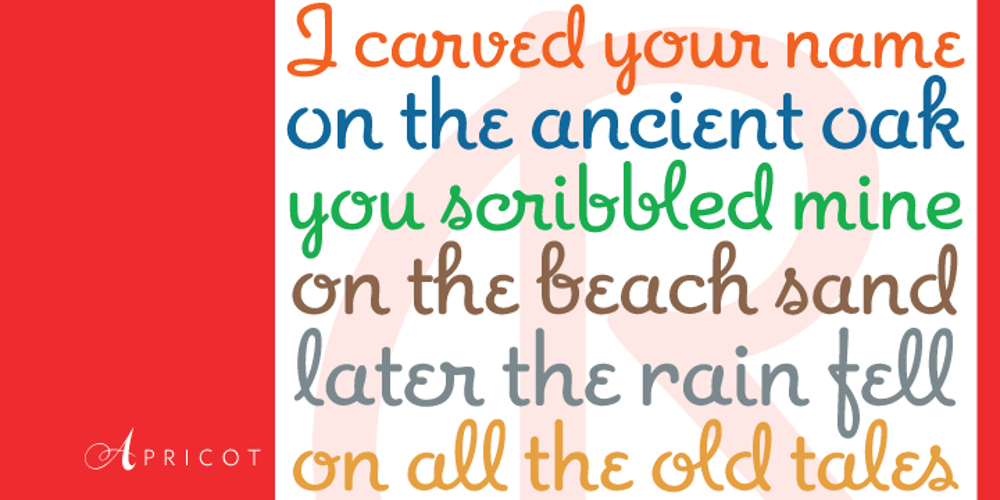
Apricot
Apricot font
Apricot Font Family was designed by A. R. Bosco, Rebecca Alaccari and published by Canada Type. Apricot contains 1 styles and family package options. A. R. Bosco made Romany for ATF in 1934, when there was much demand for script types in advertising and publishing. It was the high times of Speedball lettering, and a casual script in that fashion was naturally very welcome. It became an instant hit and was used widely for a good part of the 1930s and 1940s. Apricot is not only a revival of Bosco’s work, but also a major expansion of it. It contains very effective solutions to the many problems presented by the original metal type, which had to always be tracked too wide because of the forms of some of its letters. Solving these problems was not an easy task. A comprehensive set of alternates was designed to give the user the ability to replace some forms in certain uses, and a large set of two-, three-, and even four-letter ligatures was added to solve the awkwardness of some of the more common letter pairings. The resulting work is quite delightful, especially for those who like to take advantage of OpenType technology. Apricot is the rarest kind of script in digital type these days, the kind that is upright, round, bold, feminine, and distinctly young in appearance. A birthday cake for a teenage girl can certainly benefit from these letters. So can greeting cards, family show posters, diary covers, party invitations, women’s shirts, toy packaging, celebration literature, and almost anything that needs that special touch of shiny happy youth. Apricot is available in all common font formats. The Postscript and True Type versions come in 4 fonts, which include one for alternates and two for ligatures alongside the main font. The OpenType version is one font that contains more than 380 glyphs and all the necessary programming for the palettes of OpenType-supporting applications. If you liked Canada Type’s hugely popular font Dominique, you will love Apricot.